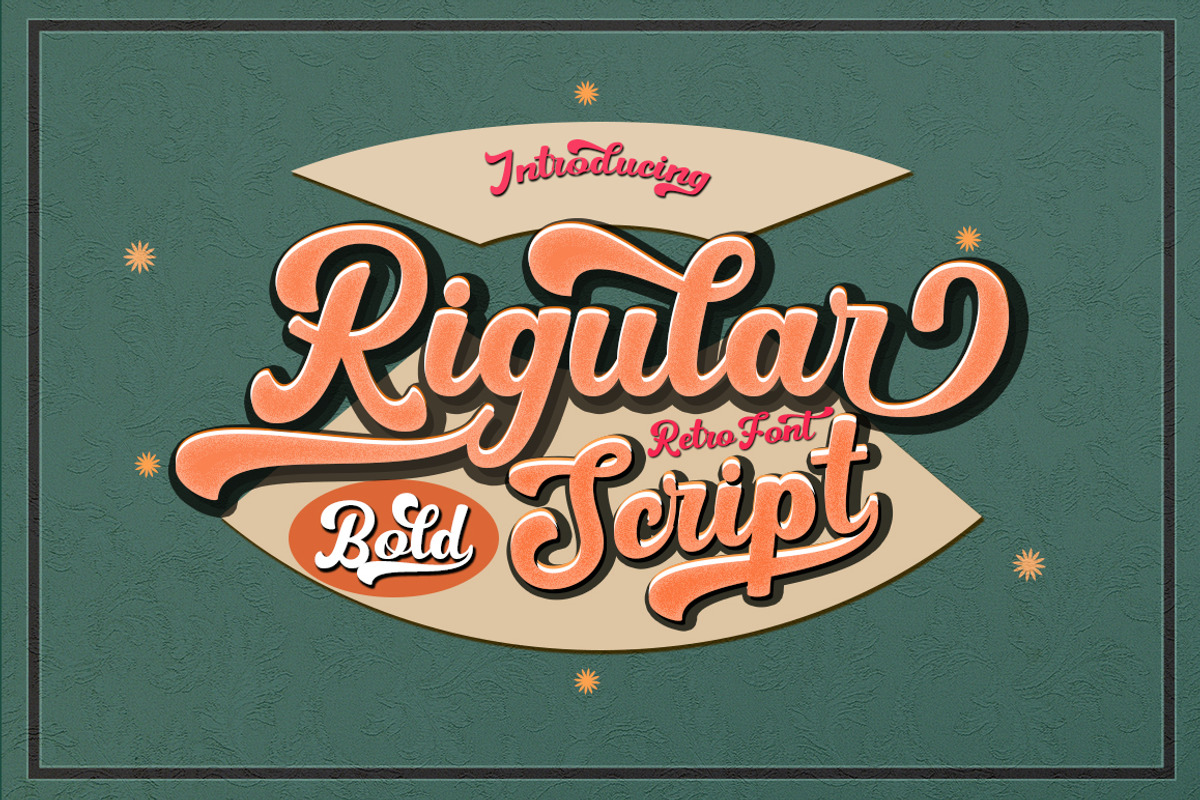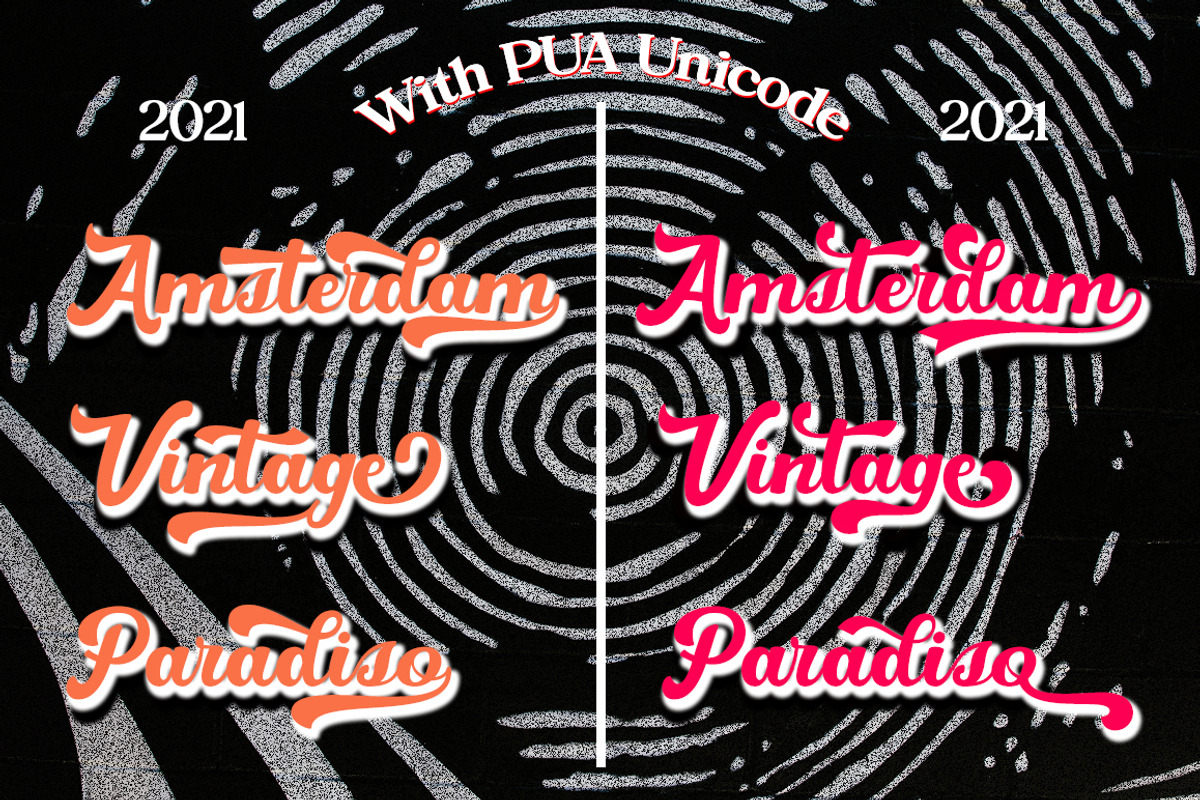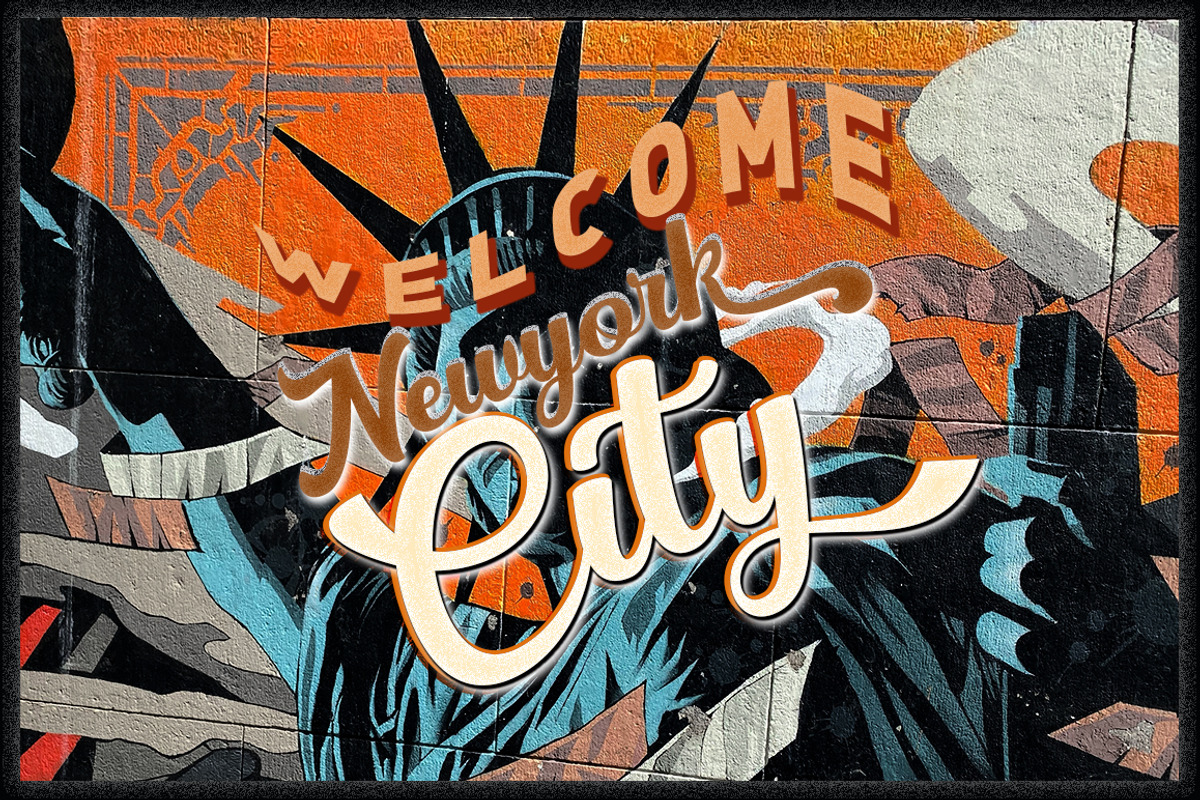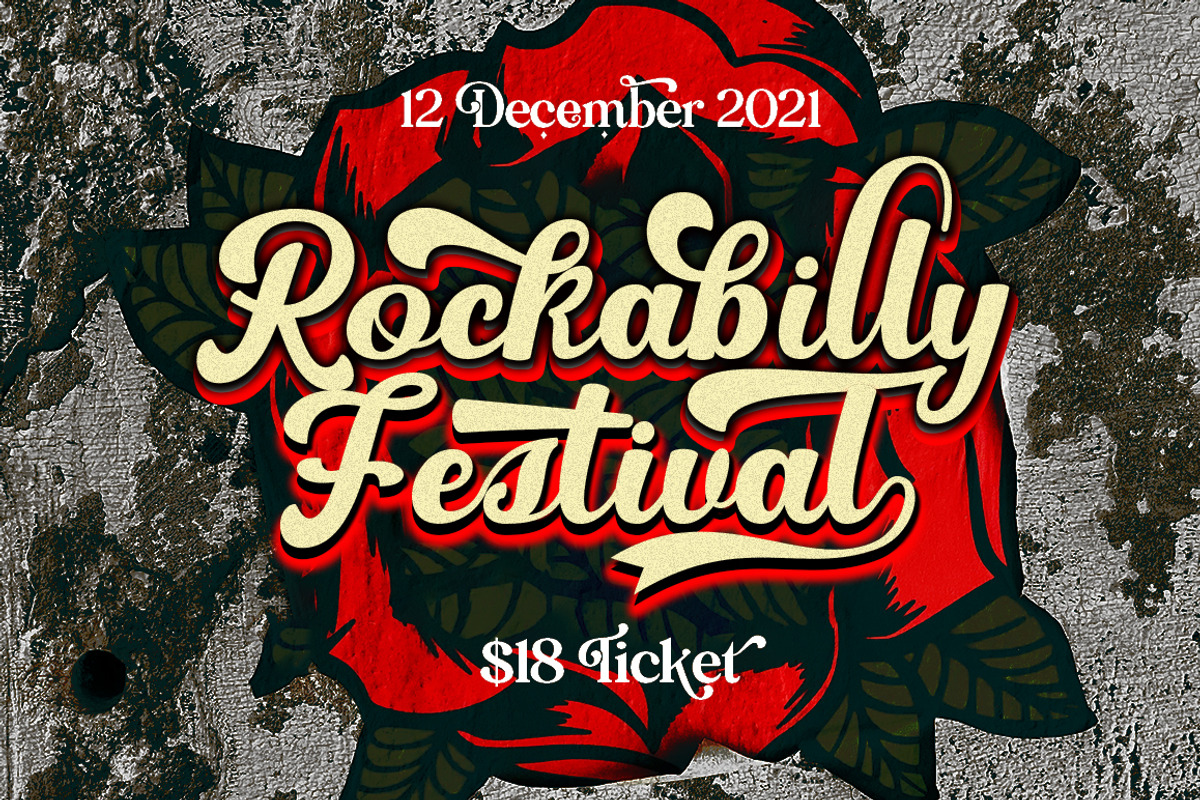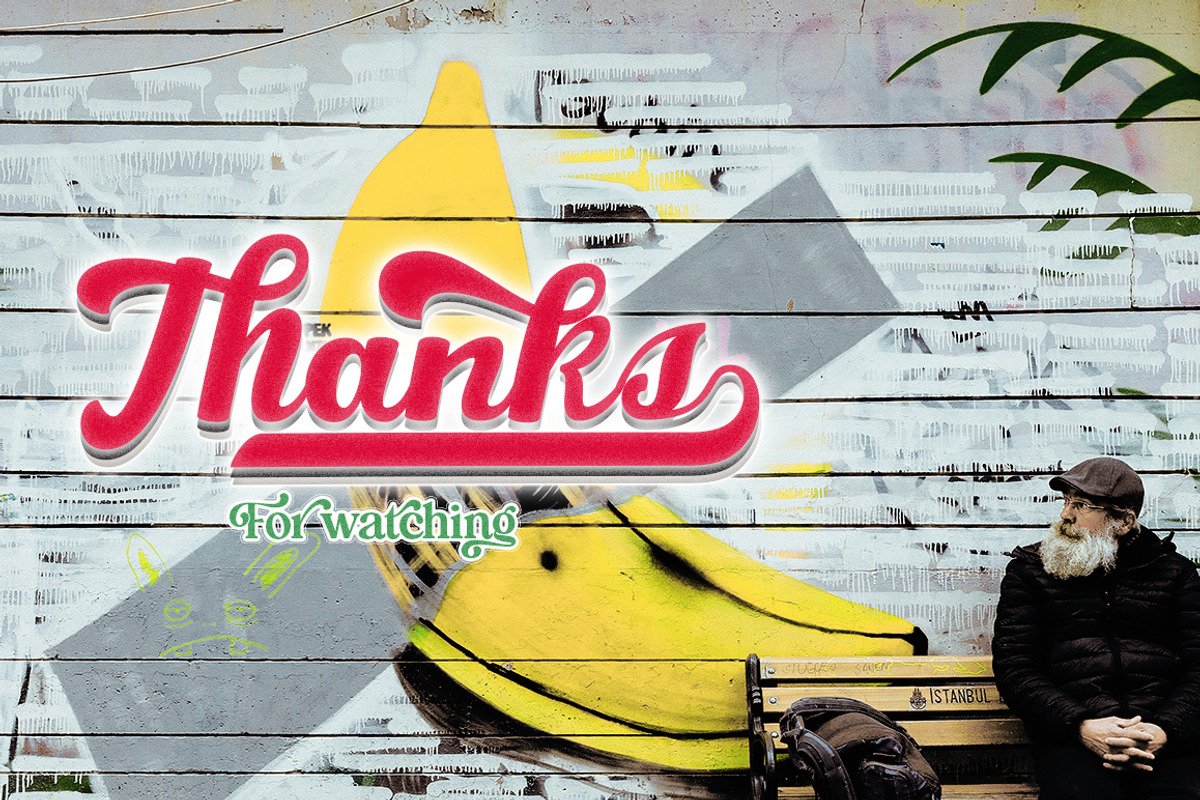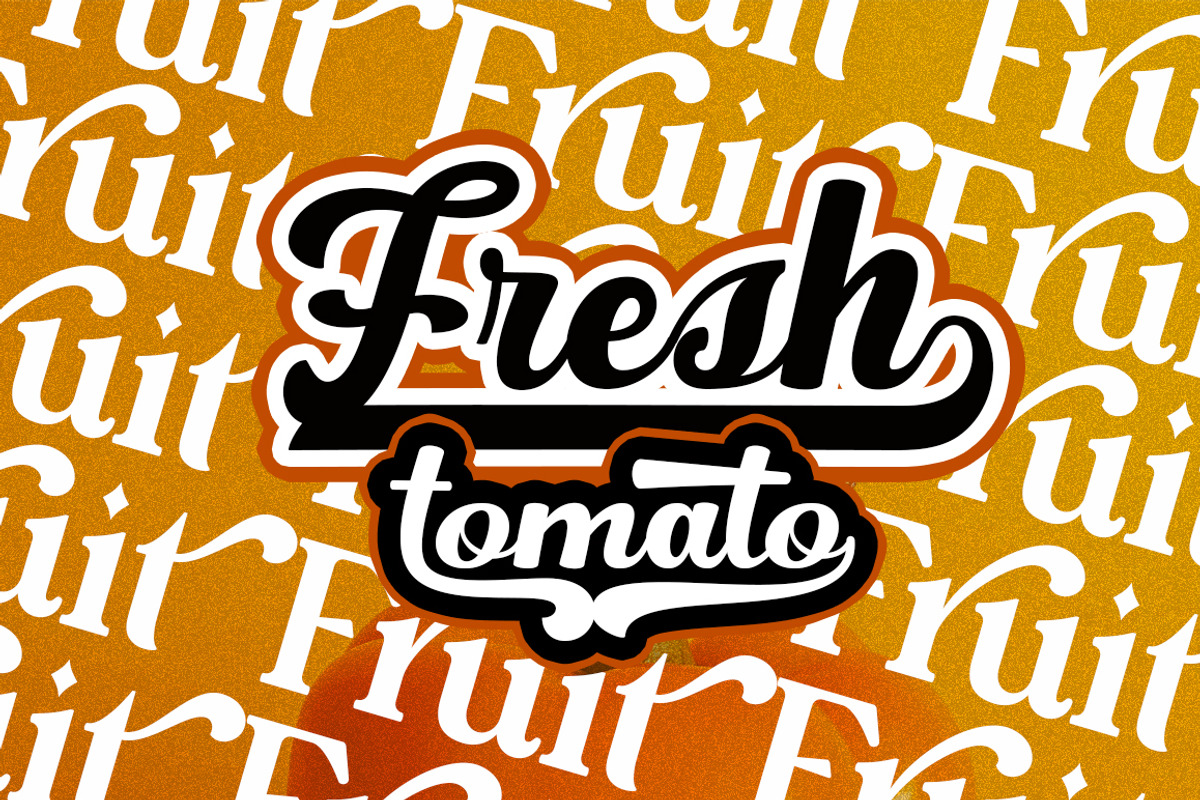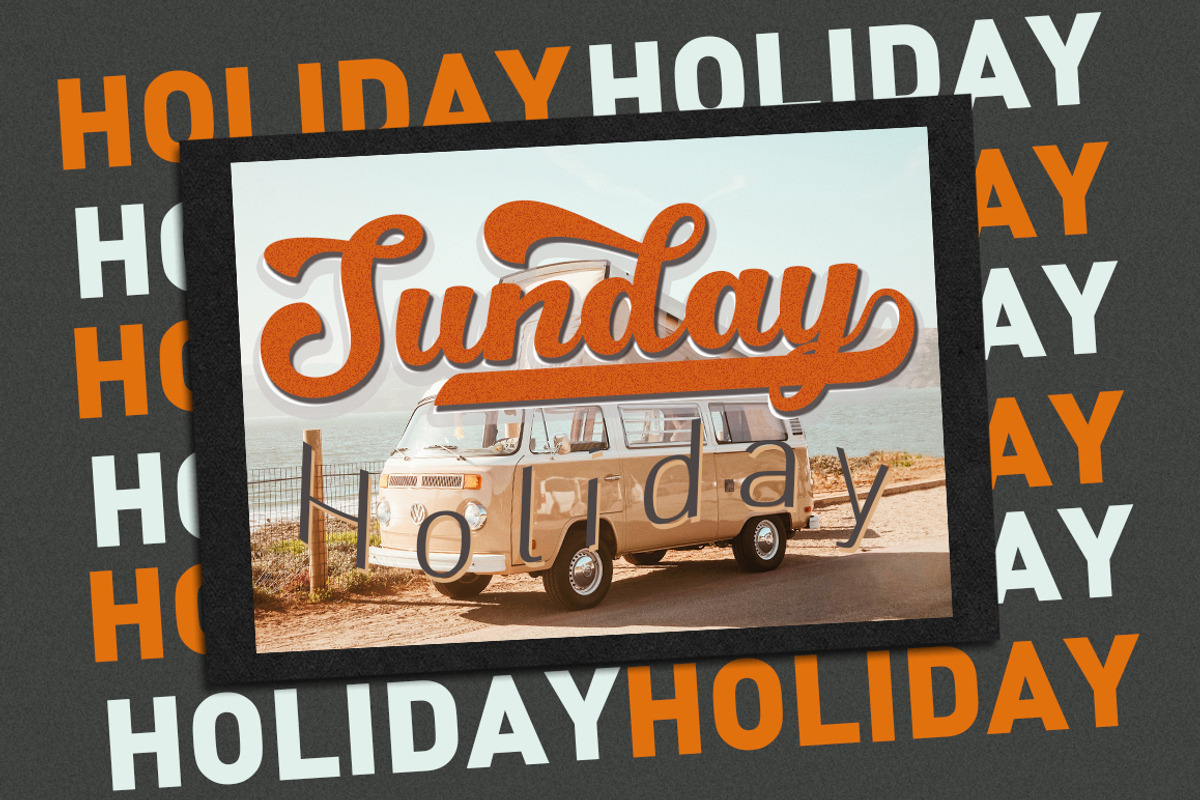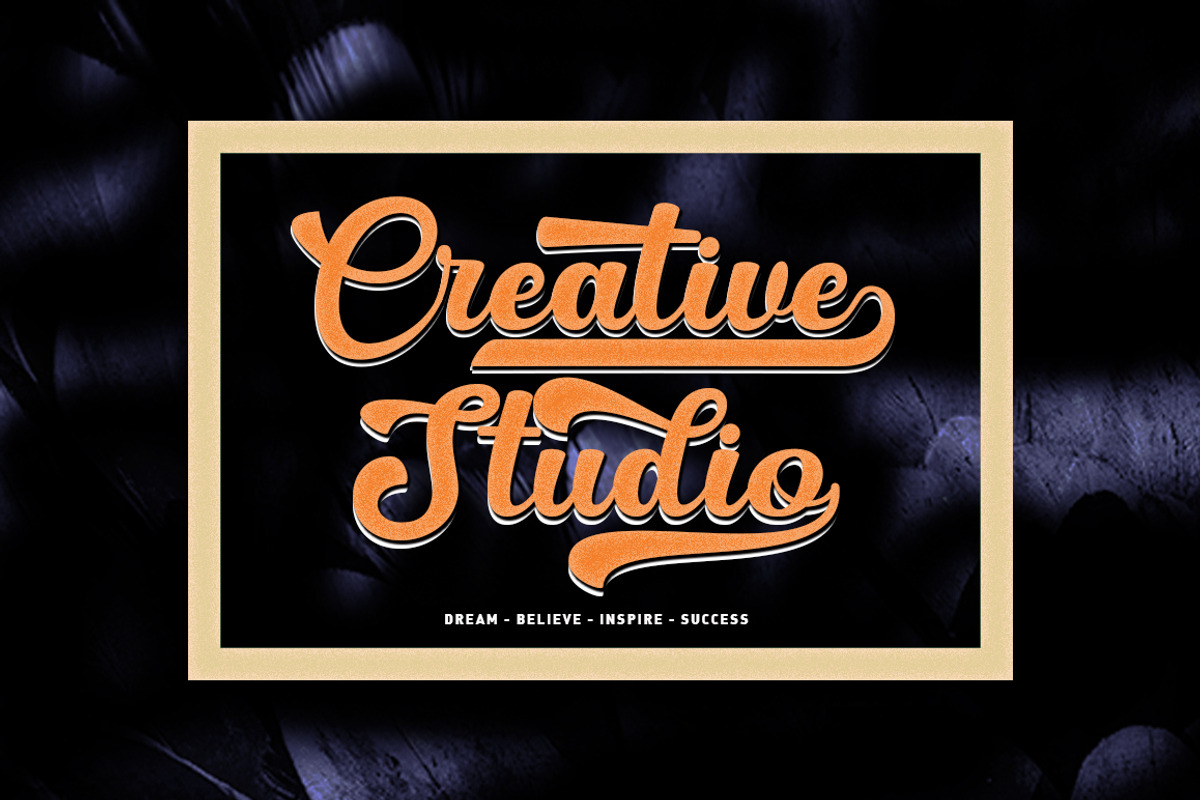
Rigular Script
Rigular Script has inspirated from retro style and funky designs like signs and old poster. This font comes with an extra extrude to make the font look more retro/unique and save your time on making it. Font has an opentype features that allow you to modify it as you like as needed. Andala perfect for poster, logo, book covers, tshirt designs, packaging and more.
Lowercase
Number
Ligature
Multilingual Language
PUA encode
Opentype Features